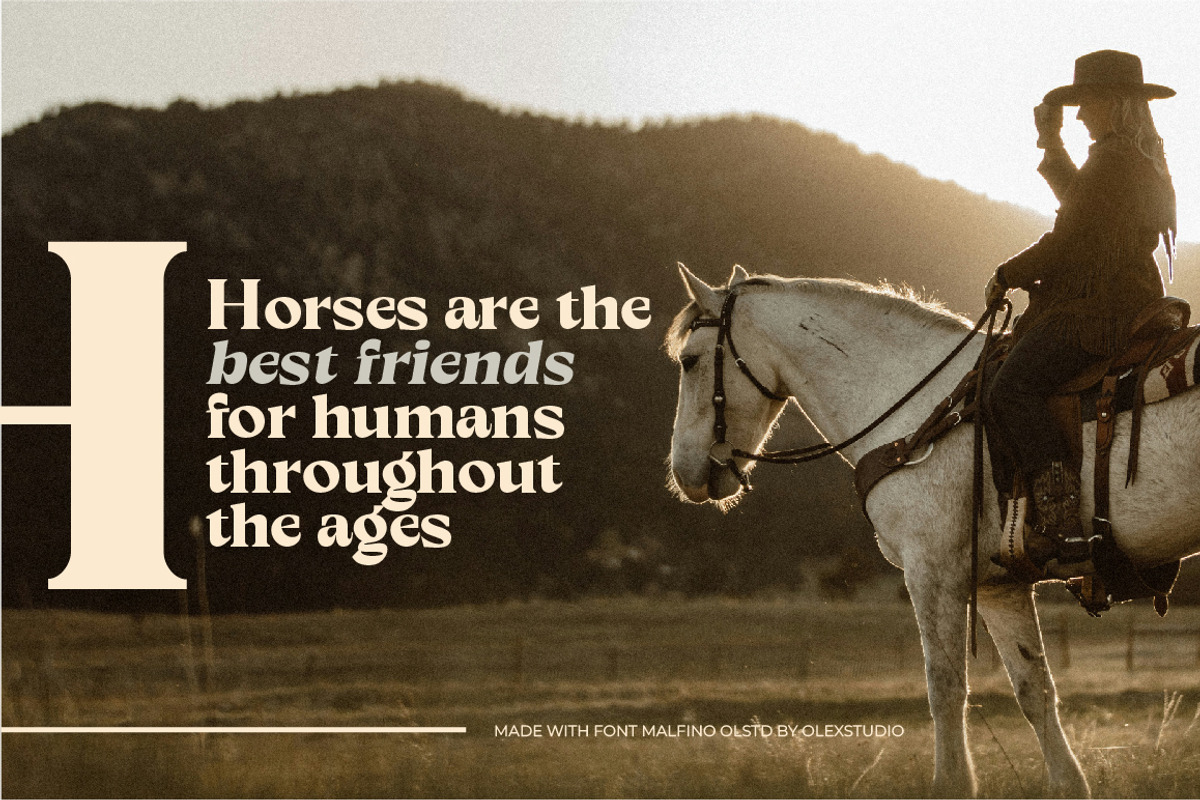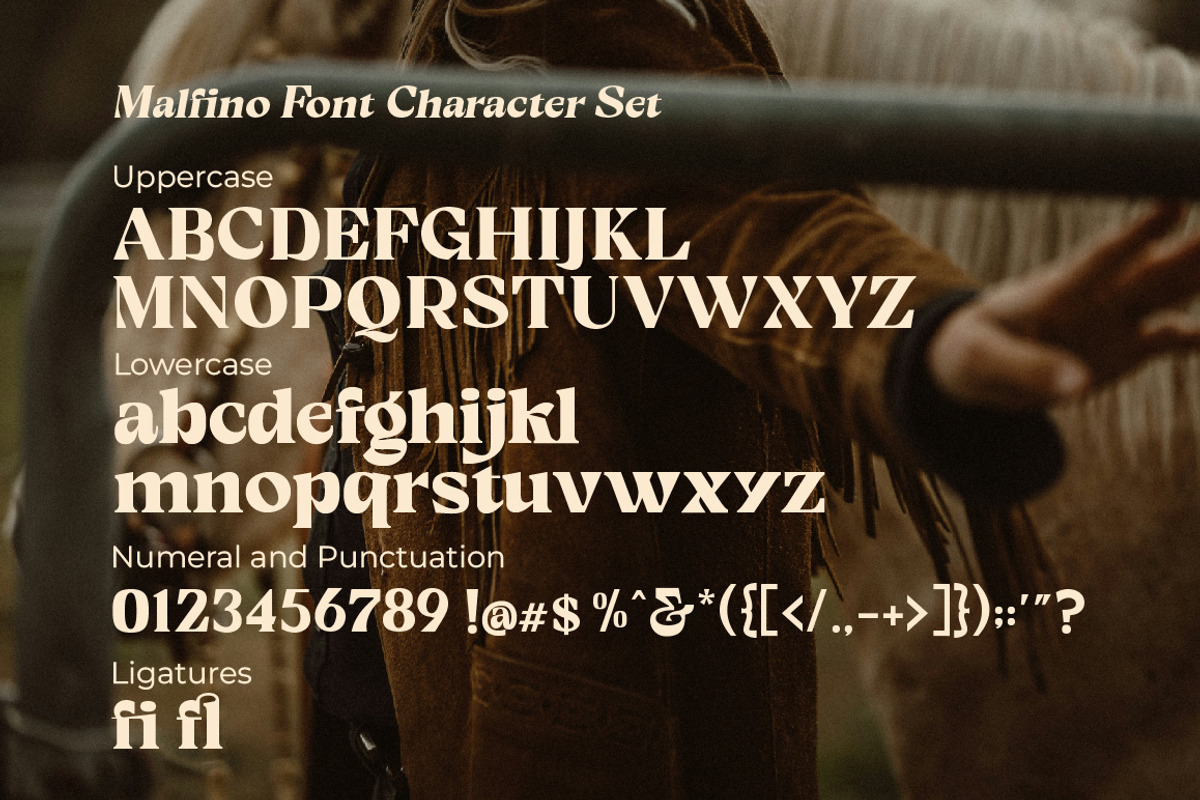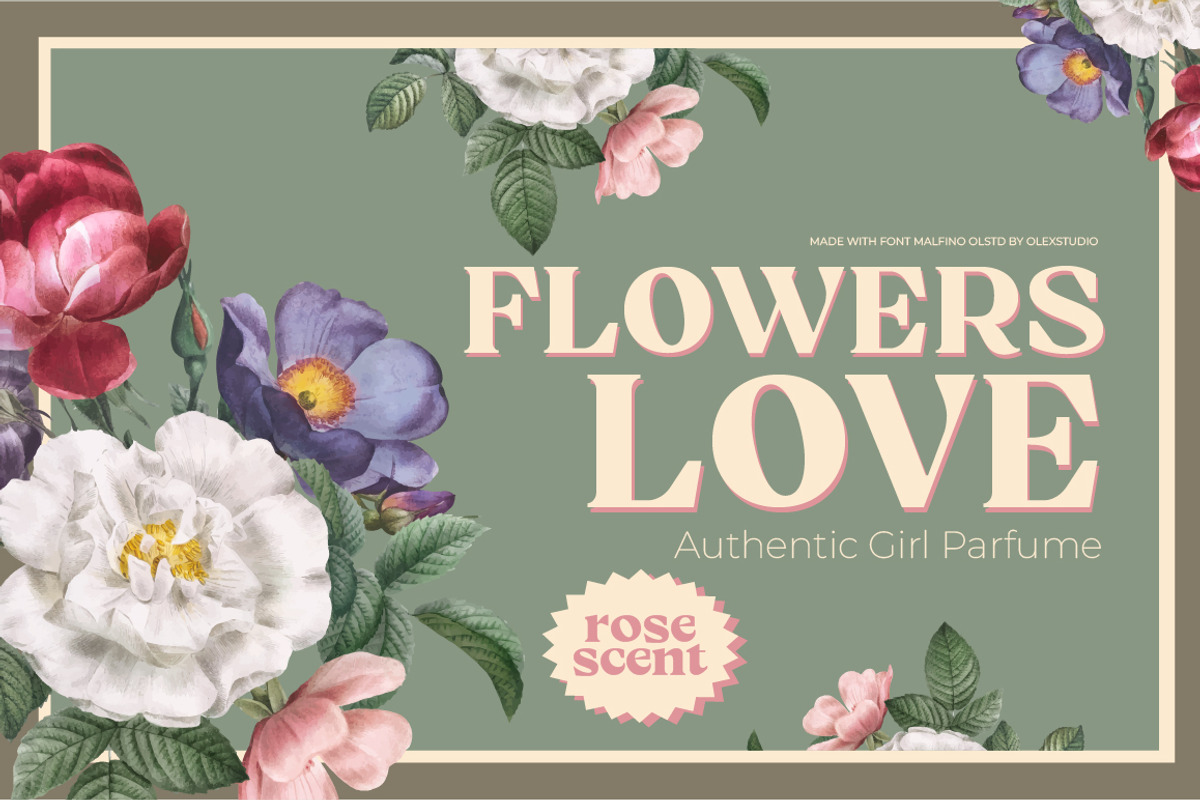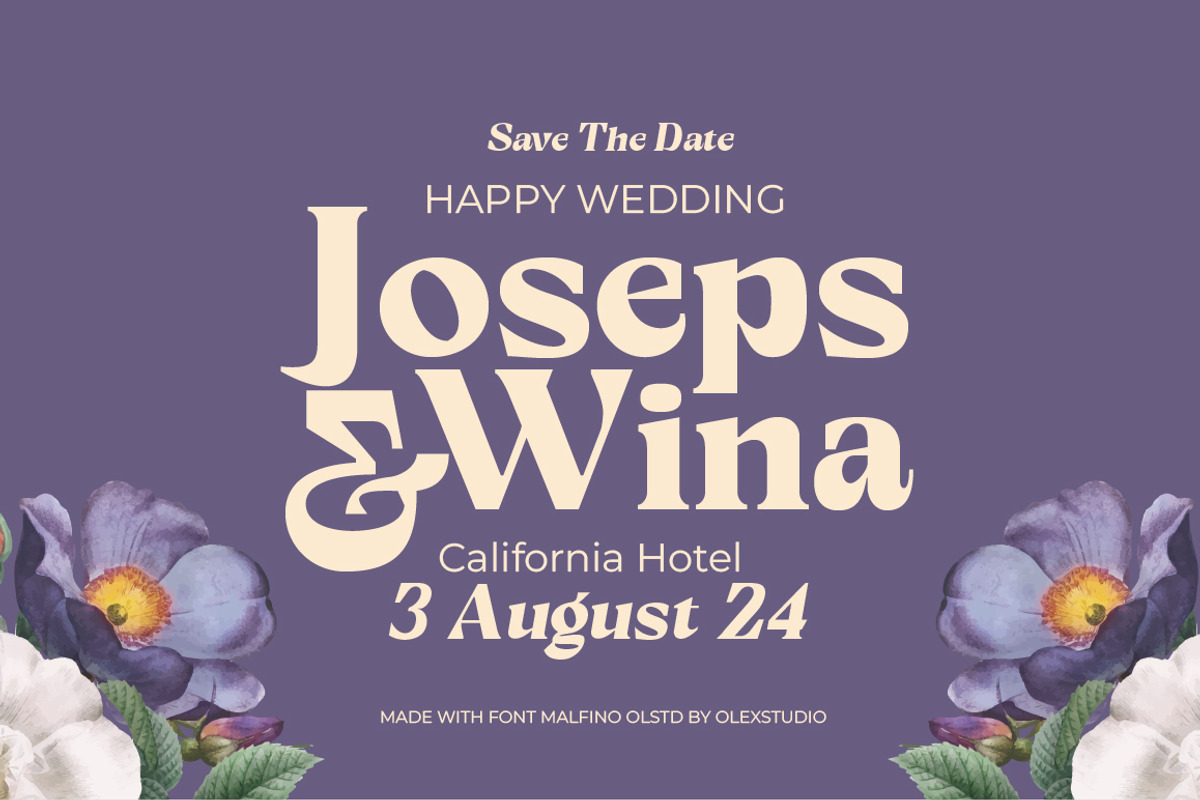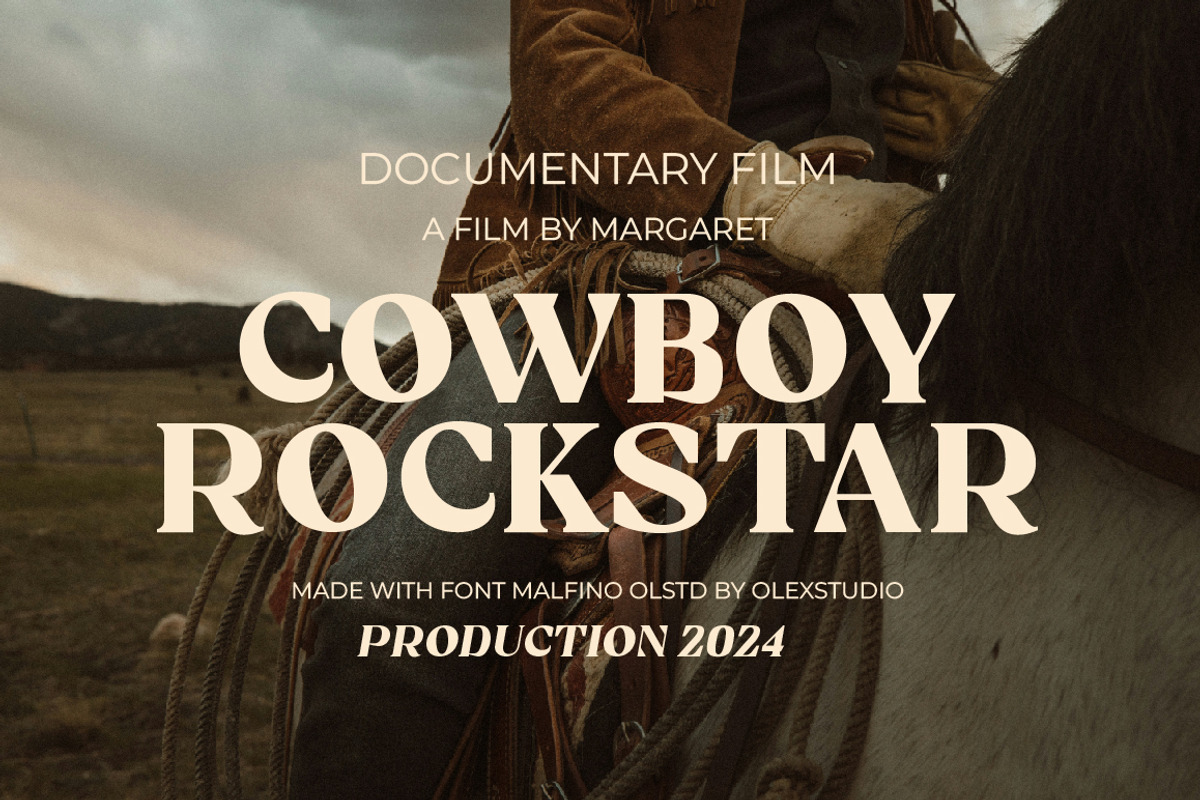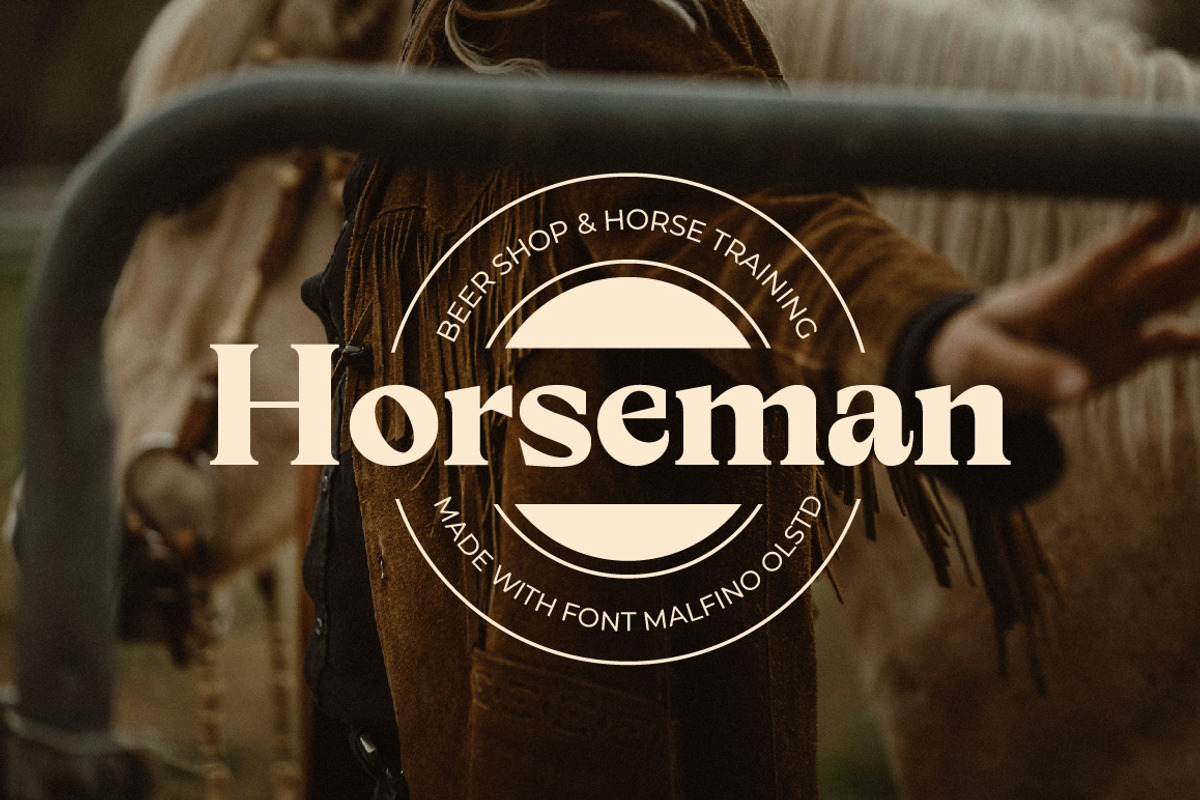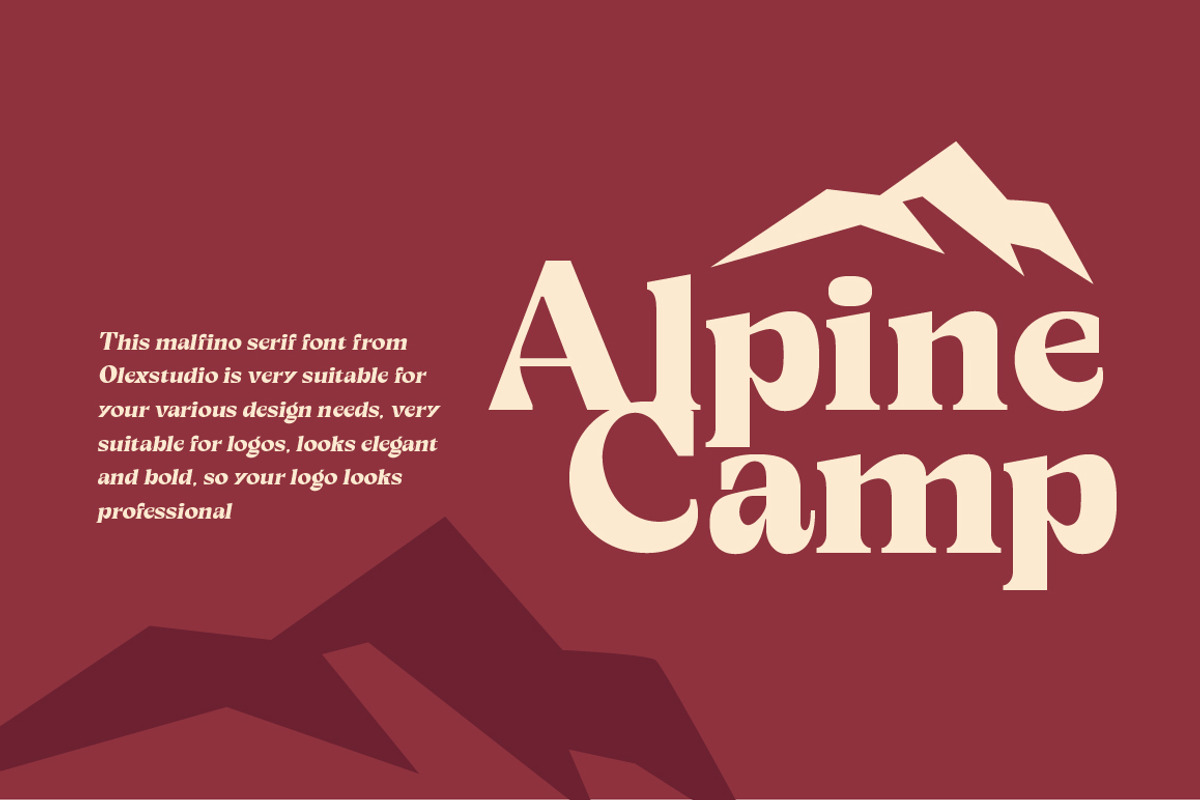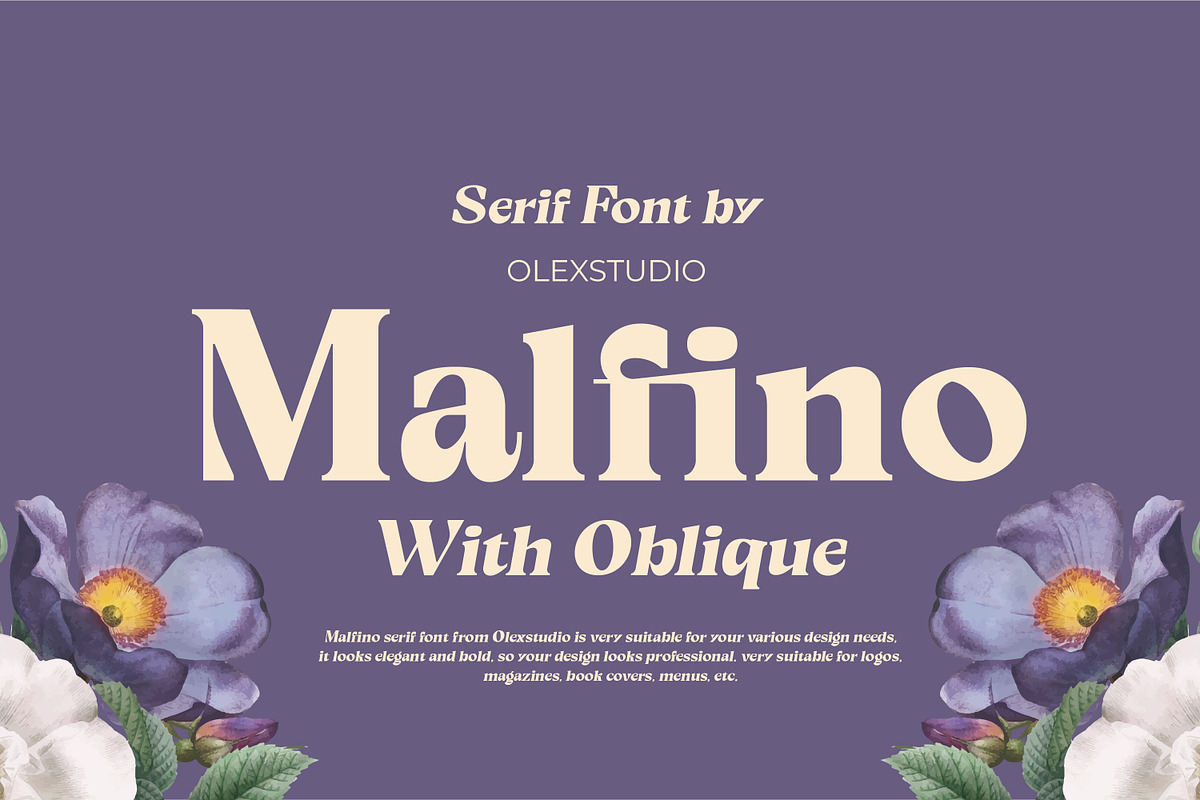
Malfino Olstd - Serif
Malfino Olstd - Serif Font will look gorgeous on all your designs, invitation, poster design, book design, branding materials, logo's, and all project design other.
Malfino Olstd -Serif Font contains standard characters, Lowercase, Uppercase, numbers, punctuation, ligatures and international glyphs. You will receive OTF, TTF files & WEBFONT.